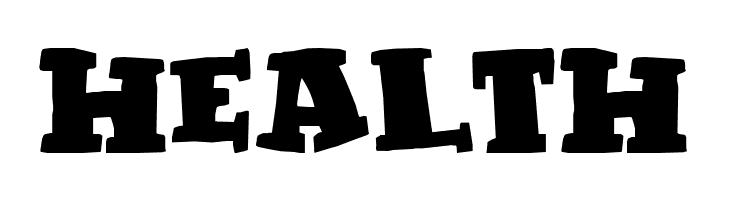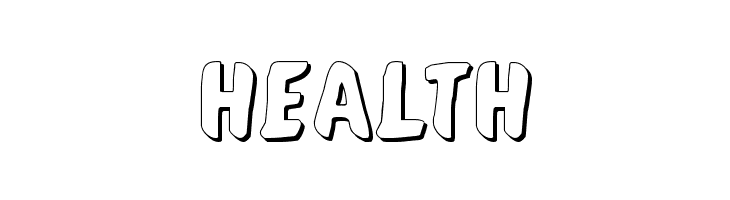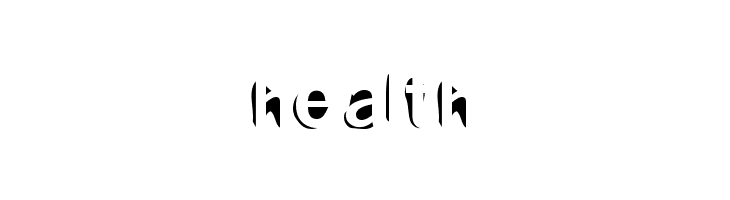
A bold, playful font with exaggerated serifs and a whimsical style.
A playful, bold font with rounded, bubbly characters.
A bold, playful font with a hand-drawn, sketch-like appearance.
A bold, angular font with a geometric and impactful style.
A bold, wide, and playful font with rounded, cartoonish characters.
A bold, playful font with a unique shadow effect and hand-drawn style.